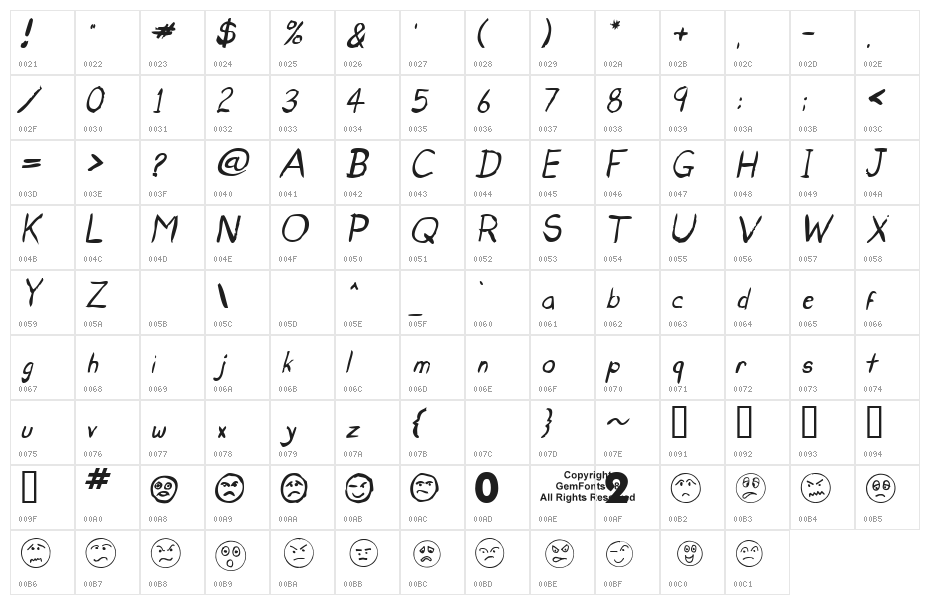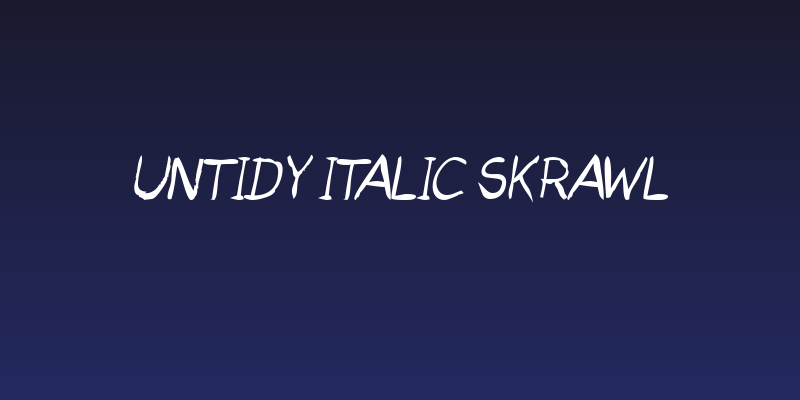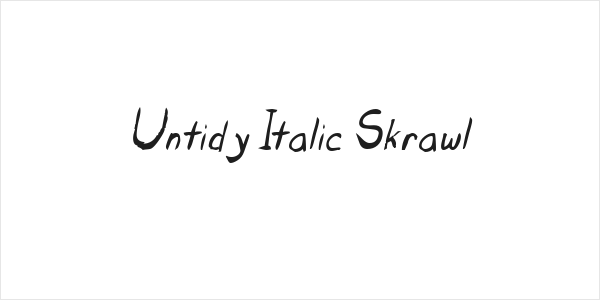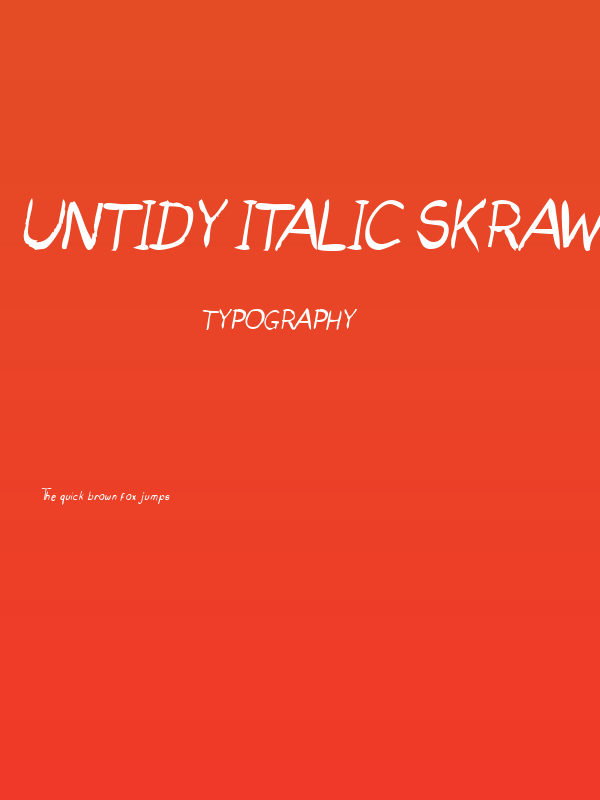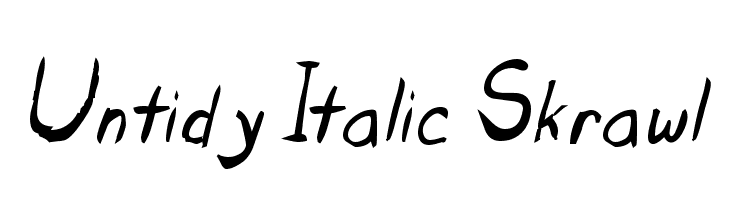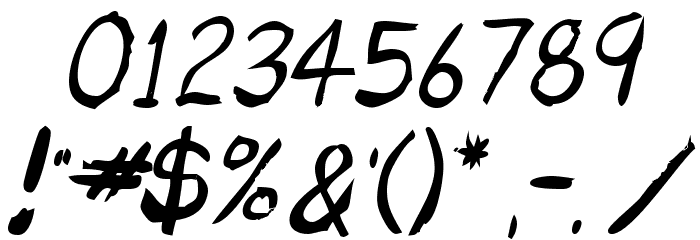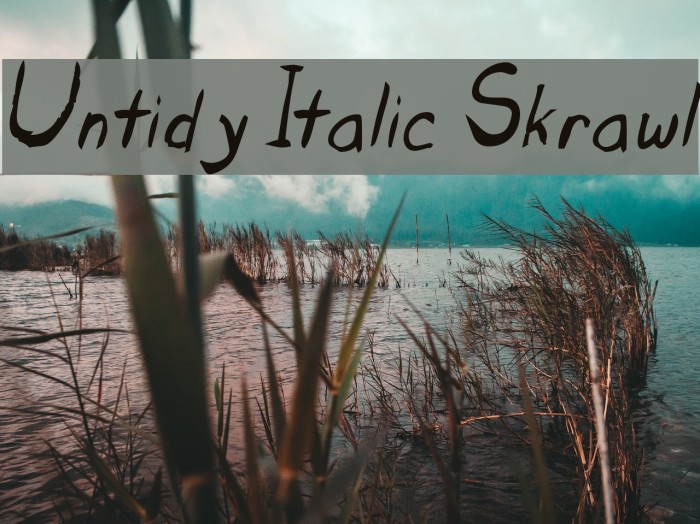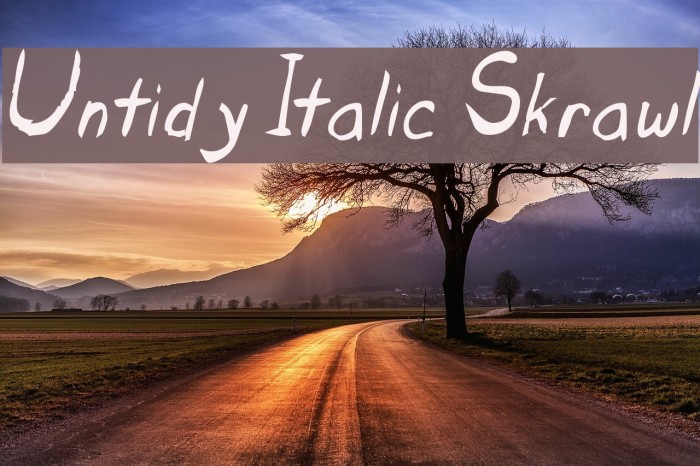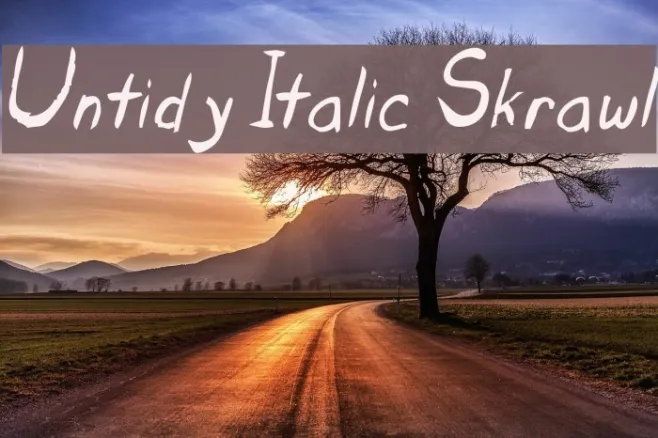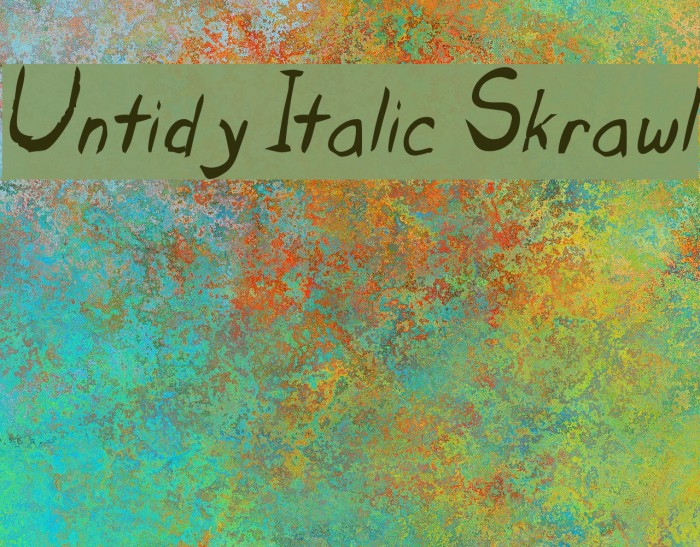
Untidy Italic Skrawl Font
| Anwendungsfall | Headlines, Logos, Creative projects |
| Vorgeschlagene Projekte | Ideal for creative projects such as greeting cards, posters, and social media graphics where a personal and energetic touch is desired. |